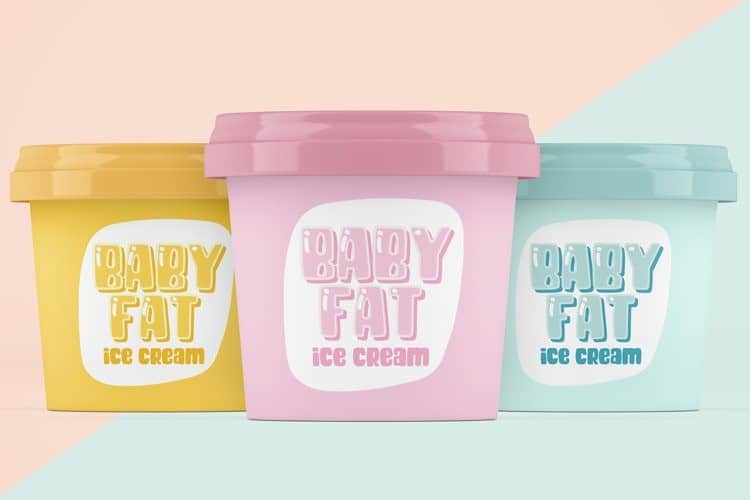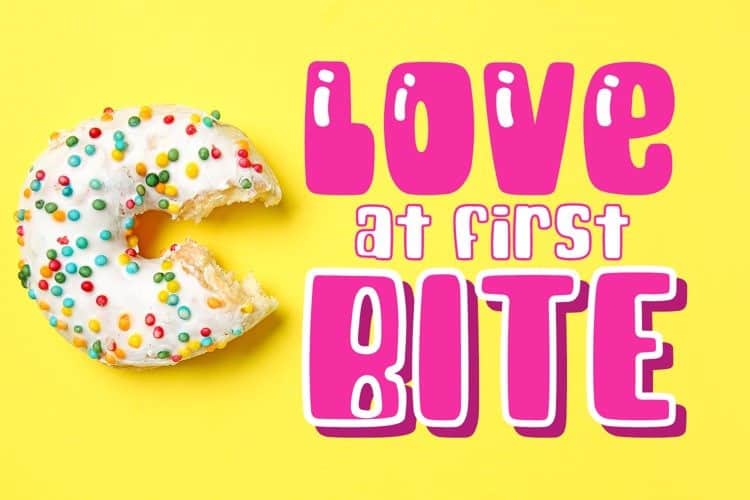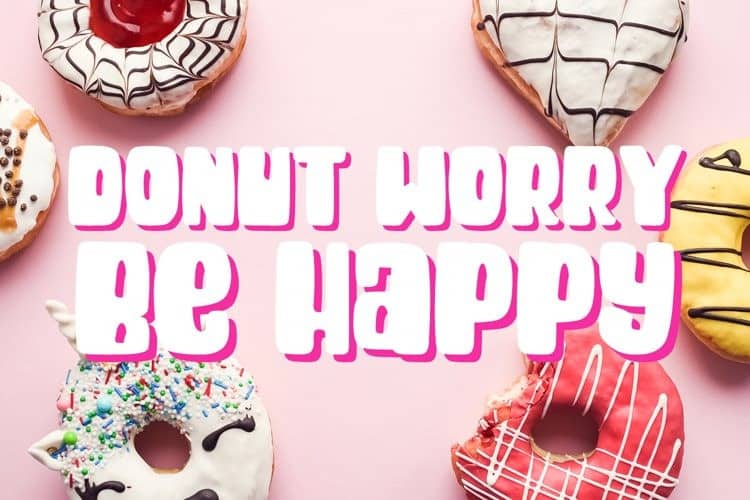
Cheeky Bite Display Font is a font created with retro style and to fit to use as logo or branding project. It features a unique style and will add a vintage & retro feel to your upcoming projects. This typeface is a display font from the designer Amber Nest Design. It’s a chunky retro layered font perfect for attention-grabbing headlines! Use this family of layered fonts to make an impact. There are 4 layers in the system which you can use independently or combined.